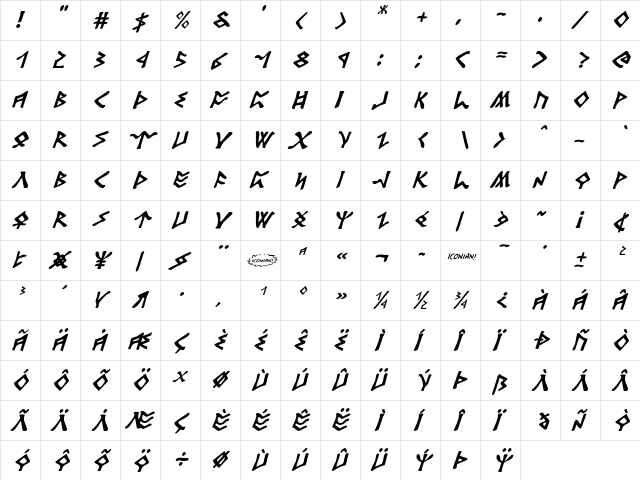
Rosicrucian Italic Italic
Design Context for Rosicrucian Italic Typeface
Rosicrucian Italic is a composed and adaptable typeface that performs quietly and consistently across a wide range of design contexts. Its italic angle brings a sense of urgency and motion to the letterforms.